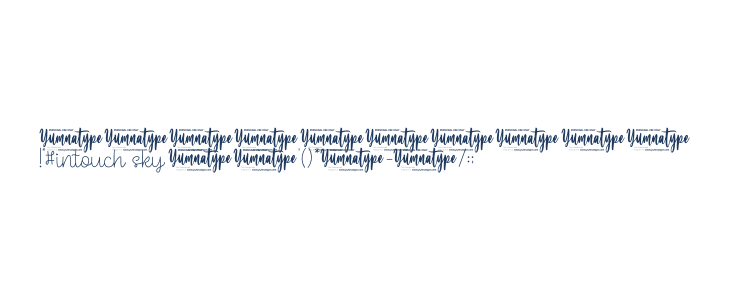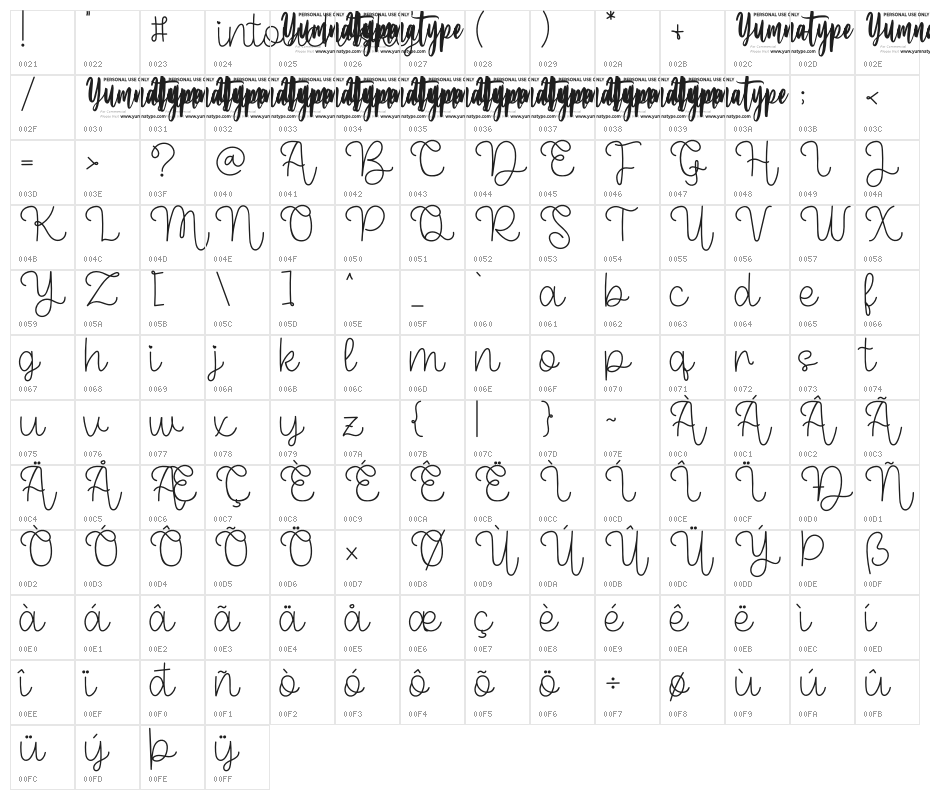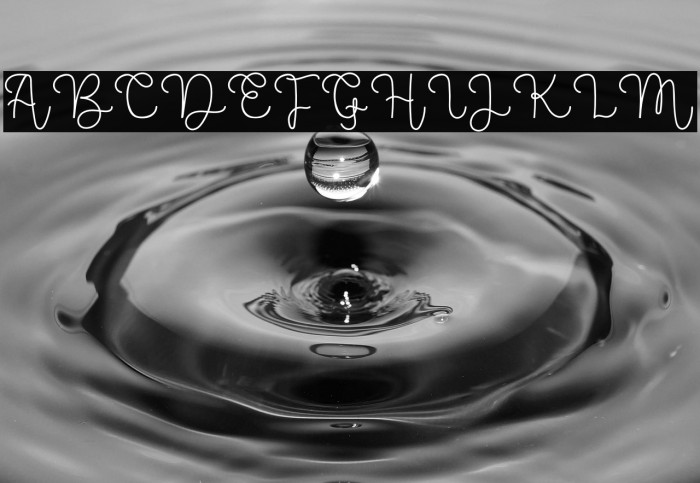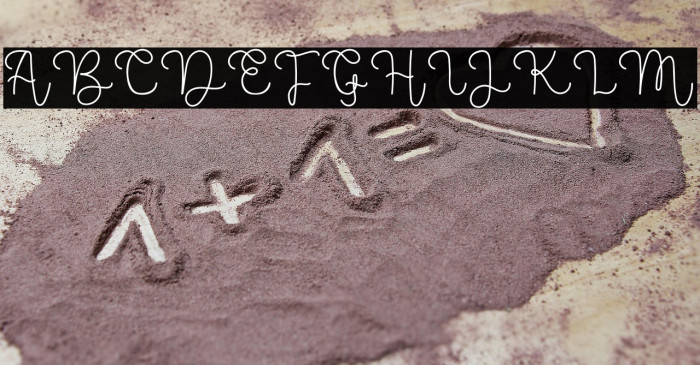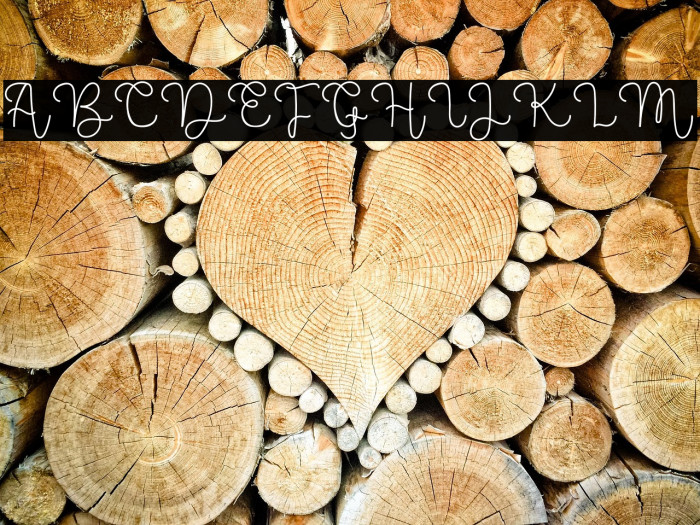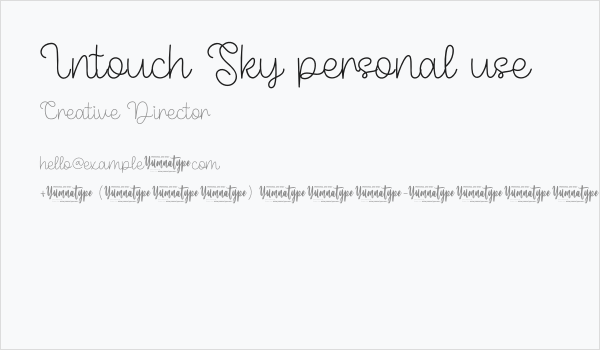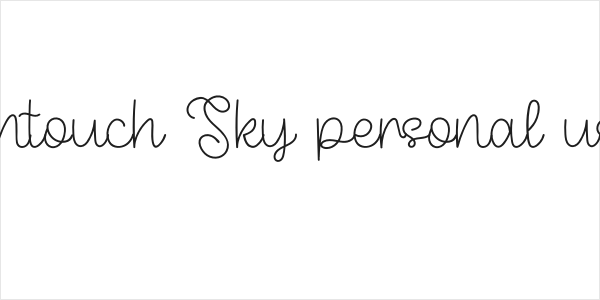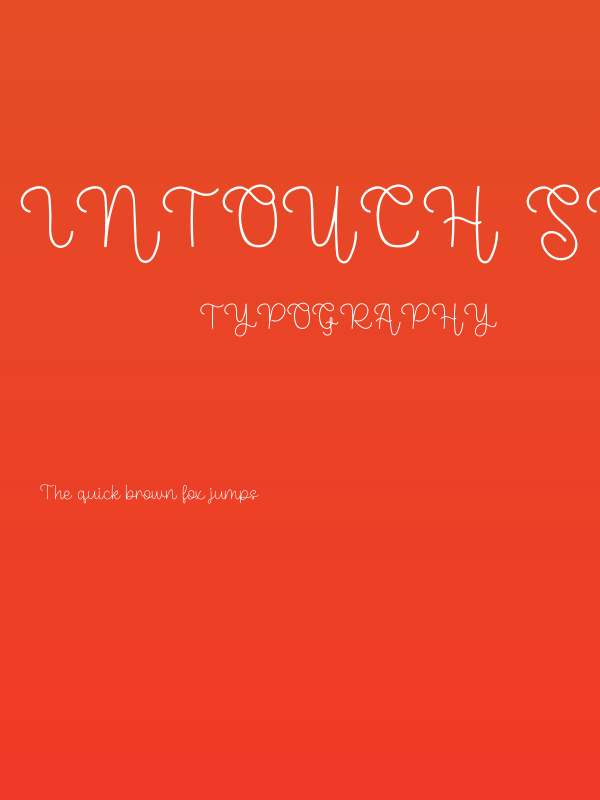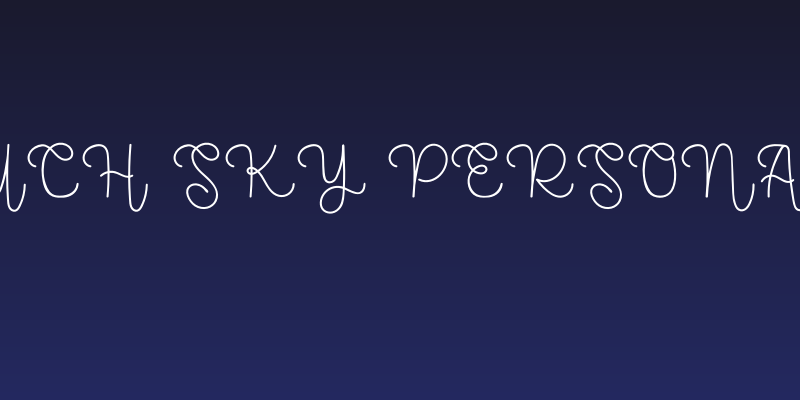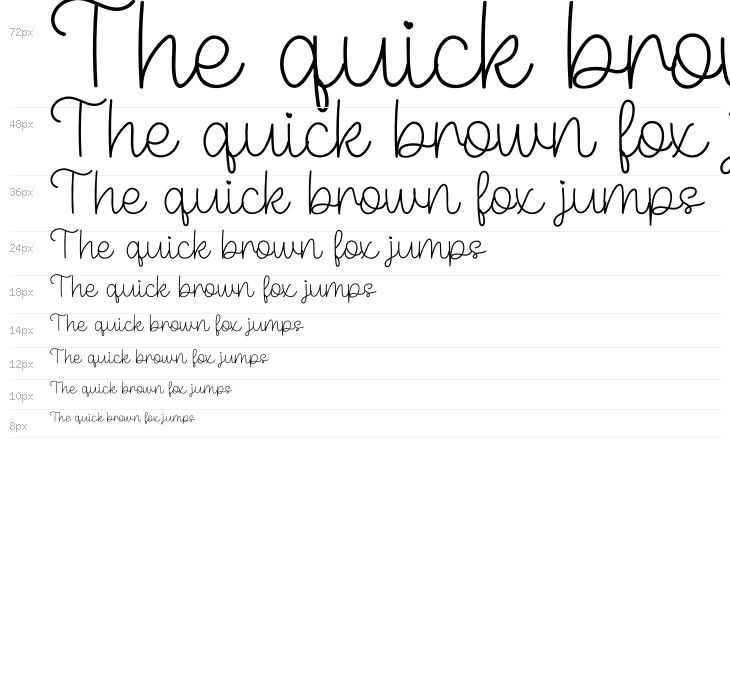
Intouch Sky personal use Font
Intouch Sky personal use Description
This font features a playful and whimsical handwritten style, characterized by its flowing and interconnected letterforms. The uppercase letters maintain a consistent height, while the lowercase letters exhibit a charming irregularity, adding to the font's casual and friendly appearance. The strokes are smooth and fluid, with a medium weight that ensures readability without sacrificing its artistic flair. The font includes a full set of uppercase and lowercase letters, numbers, and a selection of special characters, making it versatile for various design needs. Its unique style is perfect for projects that require a personal touch, such as invitations, greeting cards, and creative branding.
| Overall Style | Whimsical, Playful |
| Proposed Projects | Ideal for invitations, greeting cards, personal branding, and creative projects requiring a personal touch. |